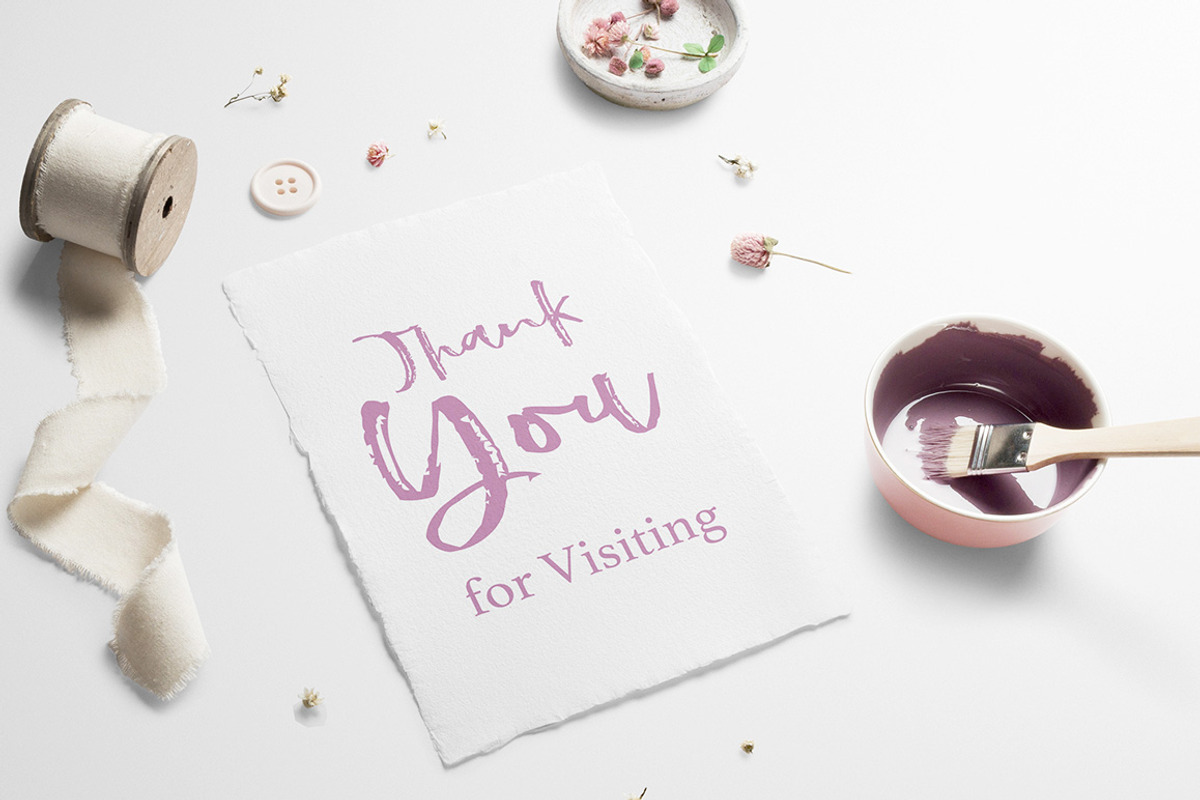
Dry Soul Script
Hi...Please welcome my latest font...Dry Soul. I create this font with my soul to share the feeling of dry brush & grunge.
Suitable for invitations, greeting cards, quotes, posters, branding, name card, stationary, design title, blog header, art quote, typography art, modern envelope lettering or book design, happening style like handdrawn design or watercolor design theme, craft design, any DIY project, book title, pop vintage design, or any purpose to make our art/design project look trendy.
- Stylistic alternates.